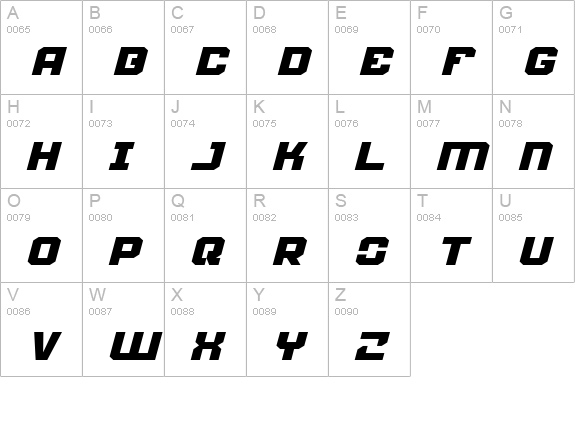
Weaponeer Expanded Italic is a distinctive, extended-width, italic variant in the Weaponeer typeface family \xE2\x80\x94 well suited to design and typography projects.
Weaponeer Expanded Italic is a sleek and modern font that exudes sophistication and style. Its italicized design adds a touch of elegance to any project, making it perfect for branding, advertising, and creative endeavors. This versatile font is ideal for creating eye-catching headlines, signage, and logos that stand out from the crowd. The Weaponeer Expanded Italic font is available for free download at FontsMarket.com, making it easily accessible for designers and creatives looking to add a touch of flair to their work. With its unique blend of sharp angles and smooth curves, this font is sure to make a statement and leave a lasting impression. Elevate your designs with Weaponeer Expanded Italic today!